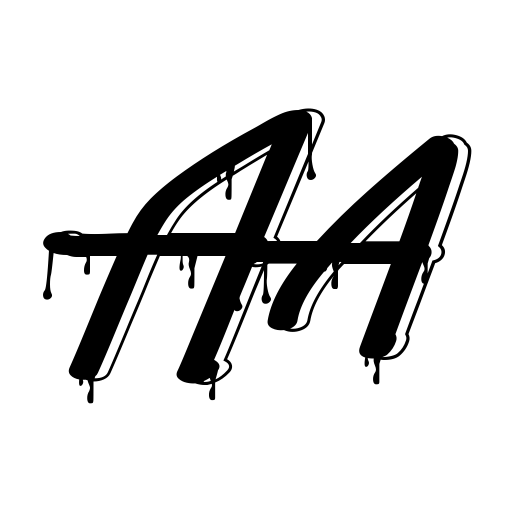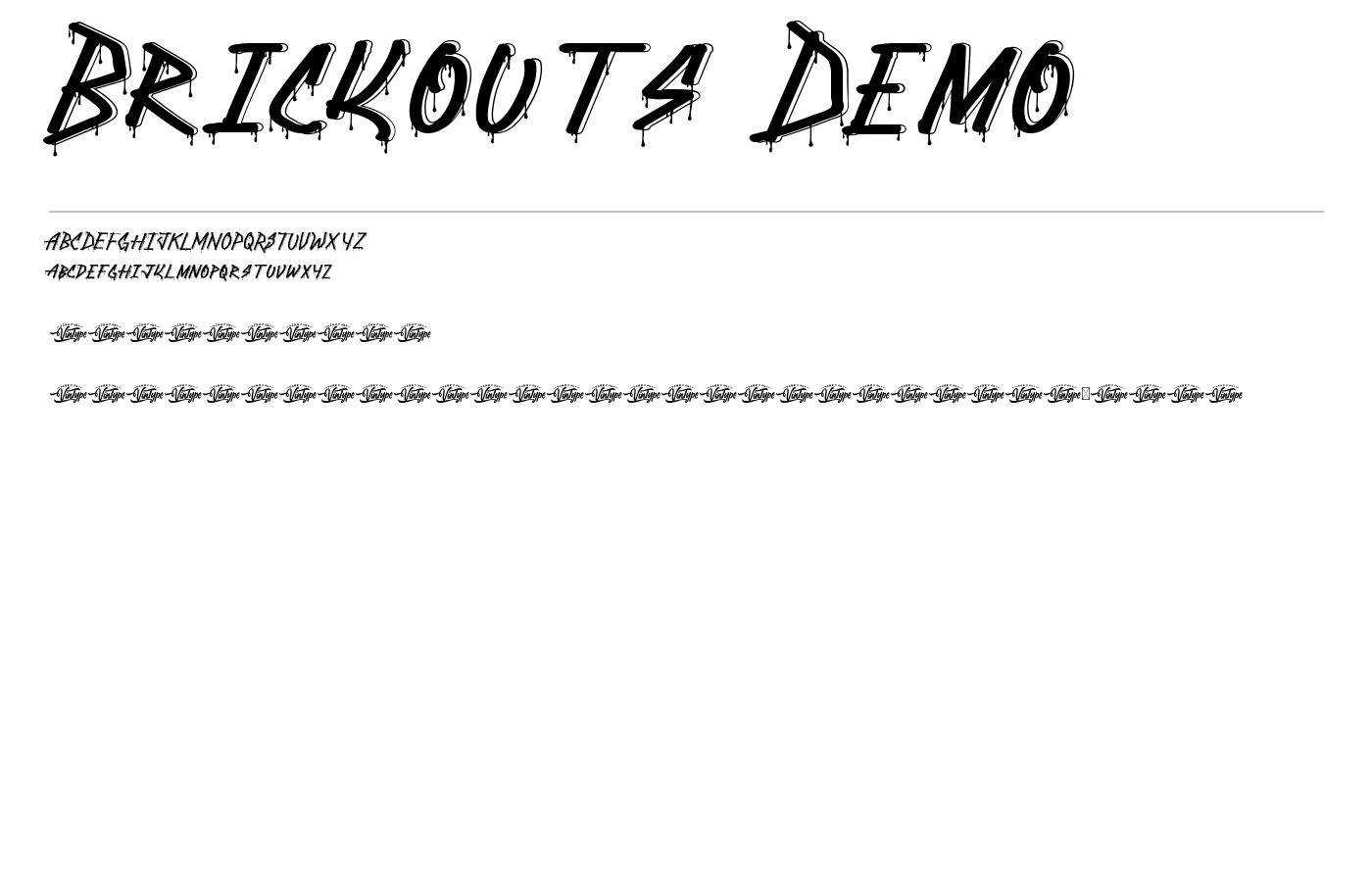
Brickouts Demo is a bold, playful script font with a graffiti-inspired style characterized by dripping ink effects and energetic, flowing strokes. Its casual, hand-drawn look makes it perfect for urban-themed designs, posters, and branding that seek to convey creativity, edginess, and youthful spirit. This font works best in headlines and display uses where a striking, unconventional vibe is desired.
Brickouts Demo Font
About Brickouts Demo Font